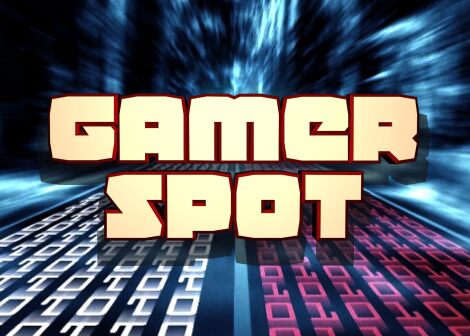
Gamer Spot Halftone is a dynamic and futuristic display font that is perfect for a wide range of projects. Designed by Iconian Fonts, this ultra-bold and extra-expanded typeface boasts a techno-inspired style that exudes energy and attitude. Its unique halftone texture adds depth and dimension to any design, making it ideal for gaming websites, posters, logos, and more. From high-impact headlines to eye-catching graphics, Gamer Spot Halftone is sure to make your project stand out from the crowd. So why settle for ordinary when you can embrace the bold with this cutting-edge font?